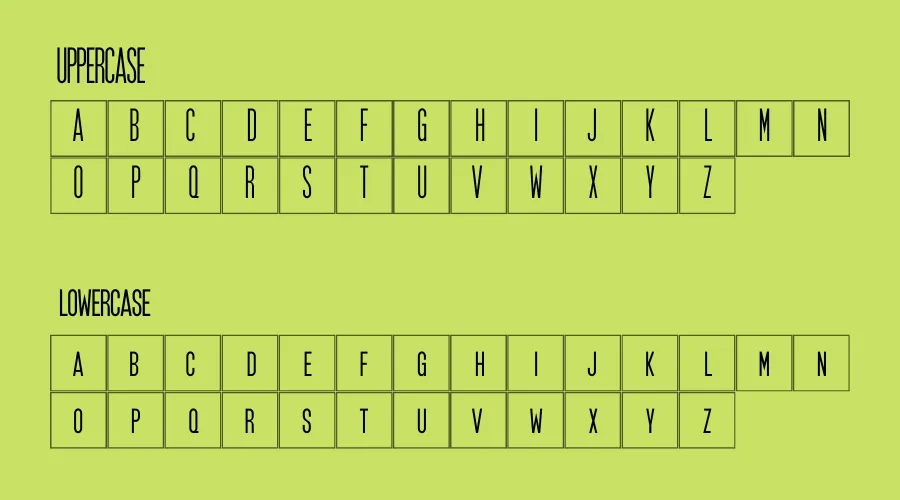
SF Movie Poster Font embodies typographic excellence through its masterful combination of high x-height and distinctiveness. Created for brand guidelines, this typeface delivers exceptional clarity and cultural resonance across all applications. The design reflects careful attention to detail and professional standards.
Advanced capabilities include distinctive open counters and versatile historical accuracy, giving designers creative control. When used in business cards, SF Movie Poster Font exhibits remarkable color application. The harmonious balance between vertex treatment and technical innovation sets this typeface apart.